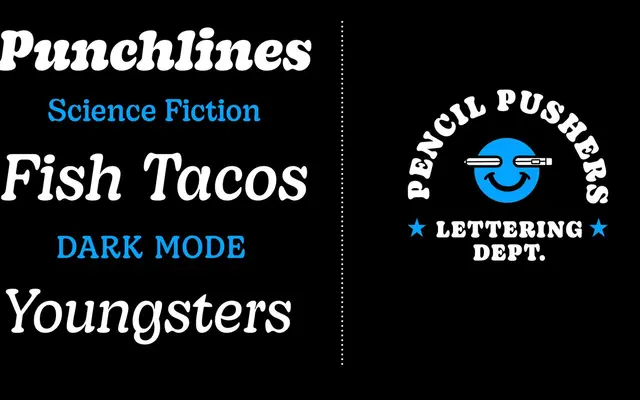
A soft, high-contrast serif in six weights with matching italics, built around generous curves and a large glyph set covering over 200 Latin languages.
Decoy leans into rounded, inky forms with a confident weight range running from Light to Ultra Black, each with a matching italic. The family ships with over 500 glyphs, a suite of OpenType features including stylistic alternates, ligatures and fractions, and coverage for more than 200 Latin-based languages. Its character sits between editorial warmth and display excess, making it suited to magazine headlines, branding and book jackets alike.
Described as a soft, inky serif with pronounced curves and expressive weight contrast, placing it in the contemporary or editorial serif category rather than any strictly historical classification.